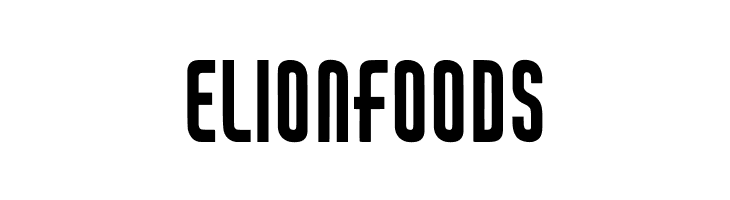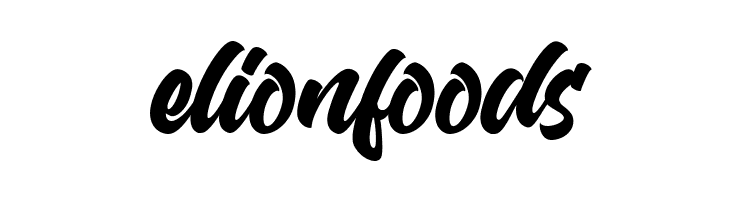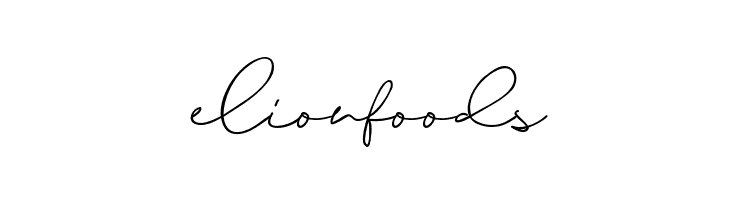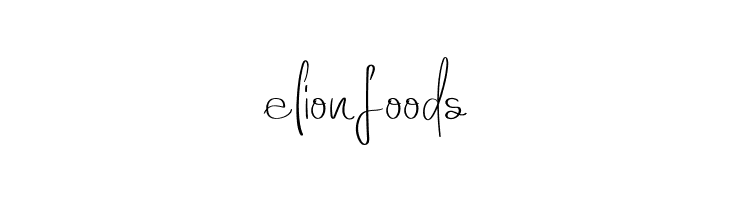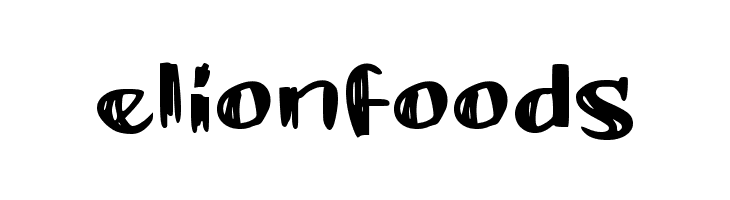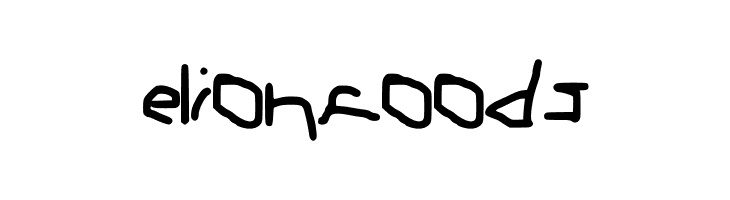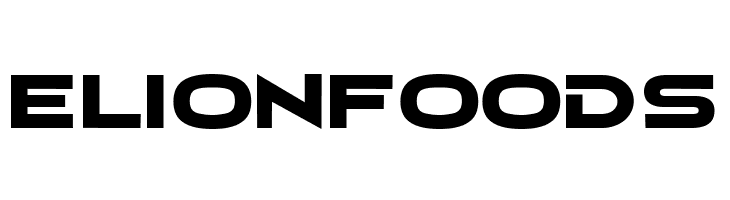
A bold, expressive script font with flowing cursive letterforms.
A bold, hand-drawn font with an expressive and dynamic style.
A hand-drawn, playful font with irregular strokes and a casual, artistic vibe.
A whimsical, handwritten font with dynamic strokes and artistic flair.
A bold, modern, and condensed sans-serif font with a geometric structure.
A bold, geometric font with a futuristic and angular design.
A bold, geometric font with a strong, industrial style.
A bold, 3D outlined font with a modern, blocky design.
A bold, 3D expanded font with a geometric, modern style.